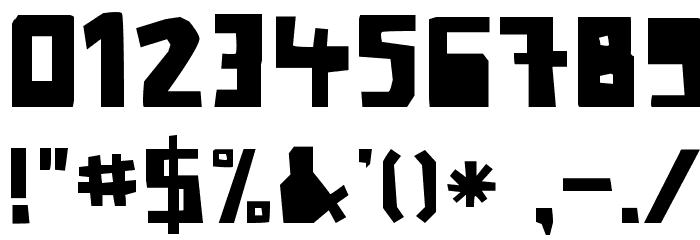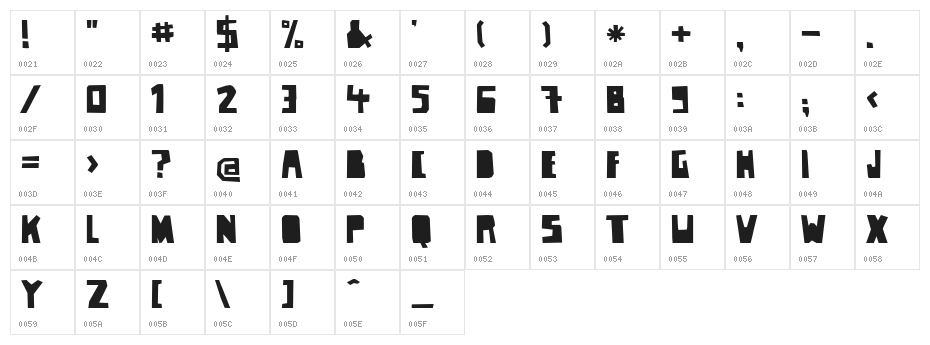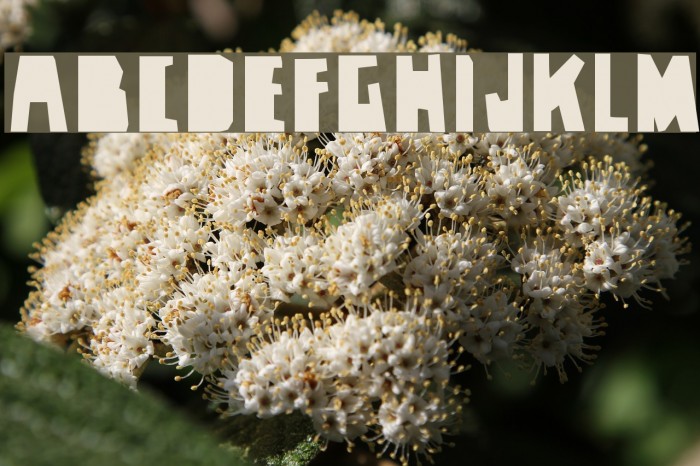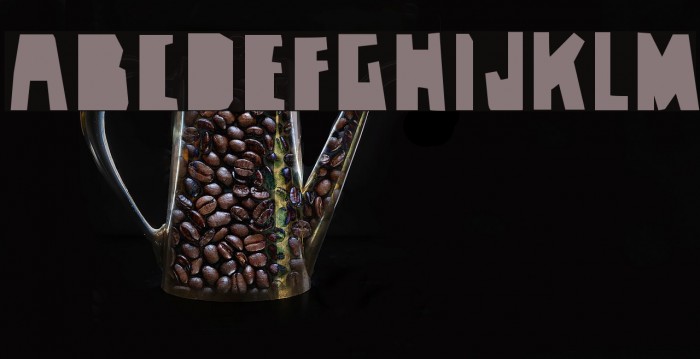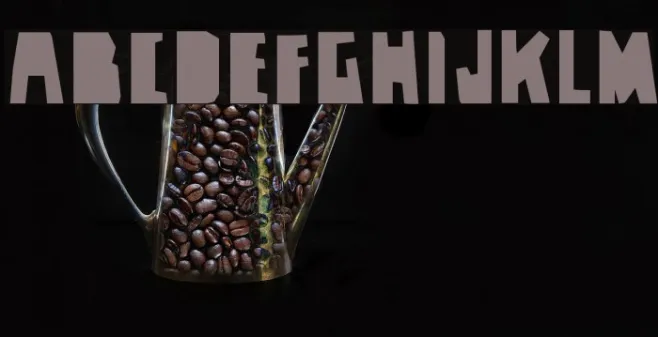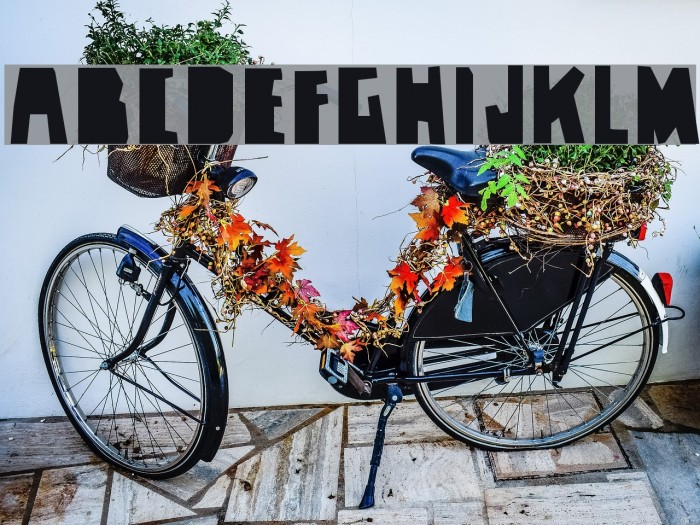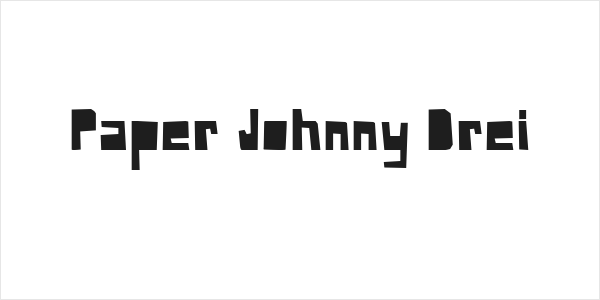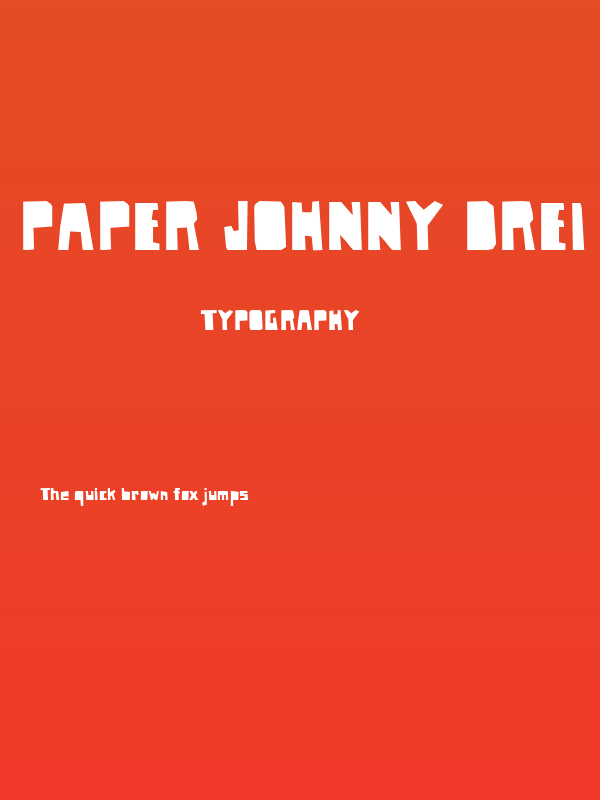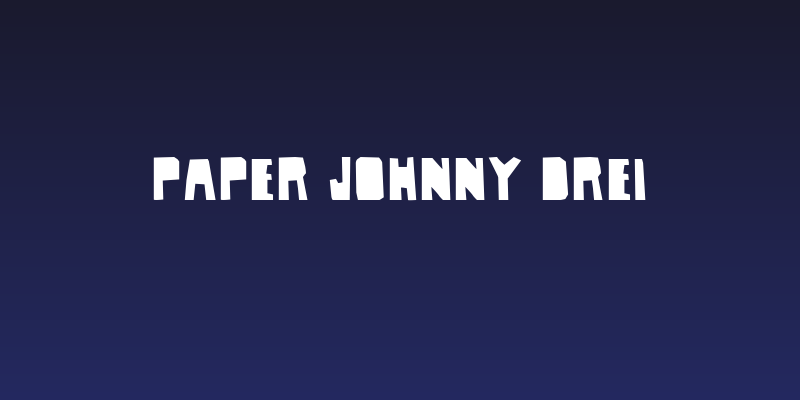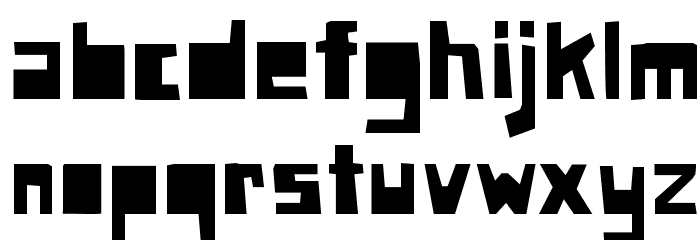
Paper Johnny Drei Font
Paper Johnny Drei Description
This font features a bold, geometric style with a distinctly angular appearance. Each character is crafted with sharp edges and a block-like structure, giving it a modern and edgy feel. The uppercase letters are particularly striking, with a uniform height and width that create a strong visual impact. The lowercase letters maintain the same angular design, providing consistency across the typeface. Numbers and special characters are designed to match the boldness and geometric nature of the alphabet, ensuring a cohesive look. This font's unique style makes it stand out, perfect for projects that require a strong, attention-grabbing typeface.
| Proposed Projects | Ideal for posters, branding, and headlines that need a modern, edgy look. |